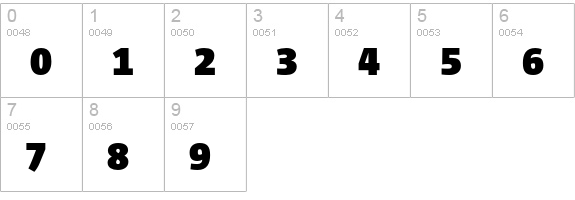
Corpid Caps Black Font Details
Corpid Caps Black is a maximum-weight, dramatic variant in the Corpid typeface family \xE2\x80\x94 well suited to maximum-impact headlines, posters, and packaging.
Corpid Caps Black font exudes a sense of sophistication and elegance with its bold and modern design. This versatile typeface is perfect for making a statement in headlines, logos, and branding materials. The strong and clean lines of Corpid Caps Black make it stand out on any project, adding a touch of professionalism and style. And the best part? Corpid Caps Black font is available for free download at FontsMarket.com. So, whether you're a designer looking to elevate your creations or a business owner in need of a sleek and impactful font, Corpid Caps Black is the perfect choice. Download it today and see the difference it can make in your designs!